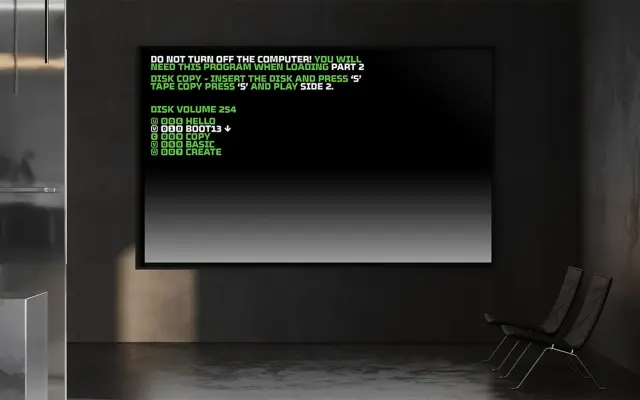
A square geometric sans built on a rectangular grid, with ink-traps and rounded corners giving it a controlled mechanical character suited to branding, signage and screen work.
Constructed on a strict rectangular grid, Celdum balances smooth curves against hard verticals and horizontals in a mono-line design that reads as both engineered and approachable. Version 2.0 introduces ink-traps for improved small-size clarity and a more industrial edge, while the boldest weight has been reinforced for headline impact. Eight weights run from Thin to Black with matching obliques, each containing over 600 glyphs and a broad set of OpenType features including multiple numeral styles, fractions and stylistic sets.
A square, mono-line geometric sans built on a rectangular grid with rounded corners and ink-traps; its engineered, mechanical character places it firmly in the geometric sans category.